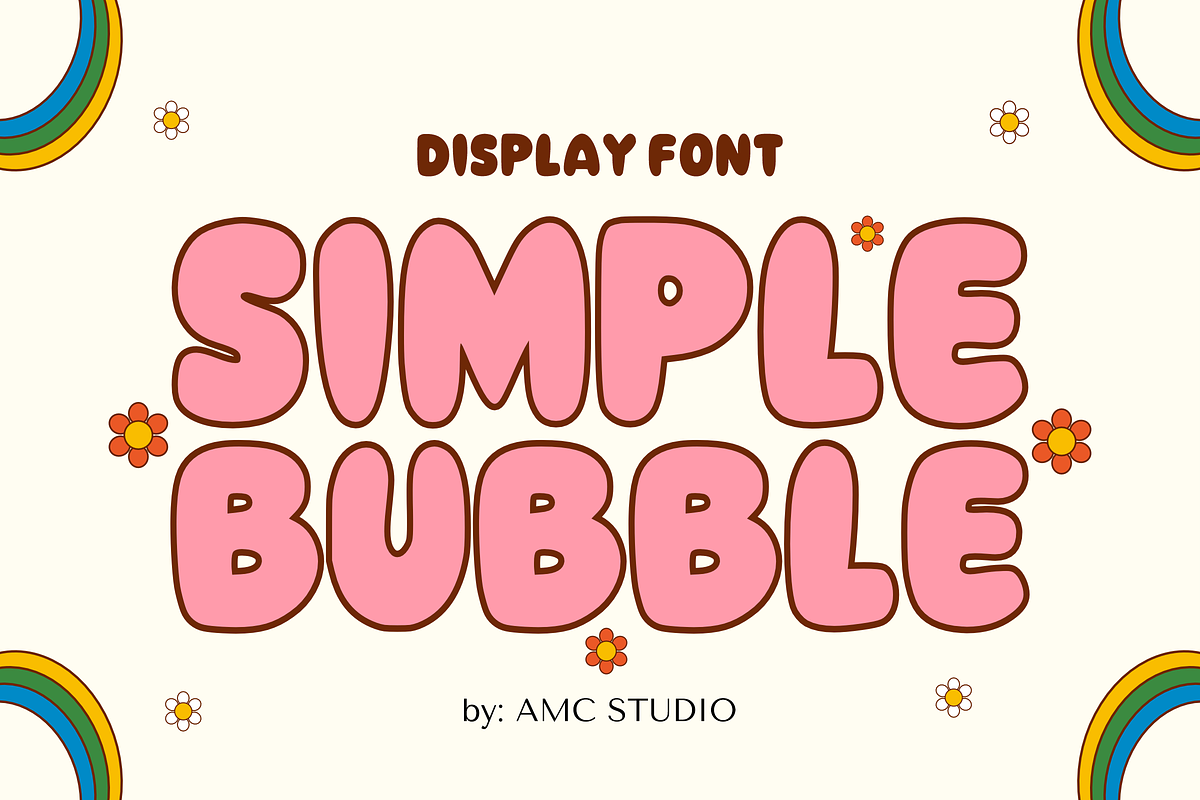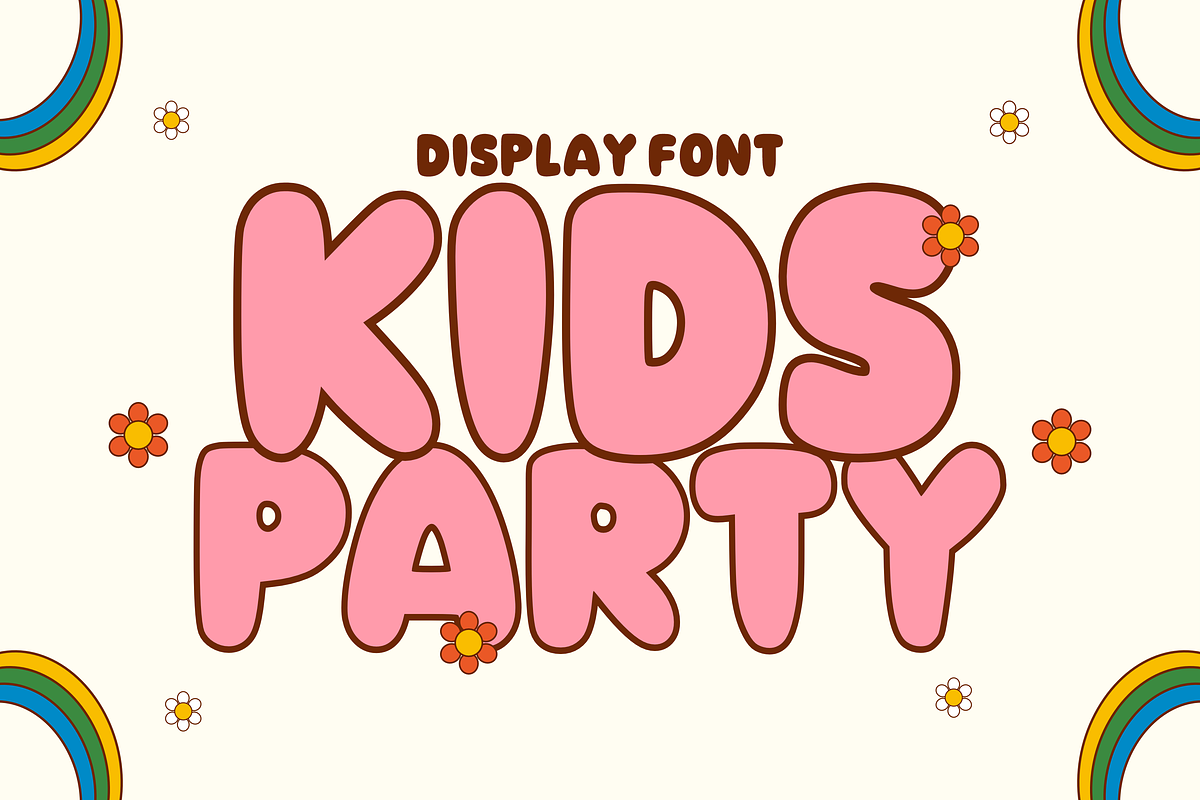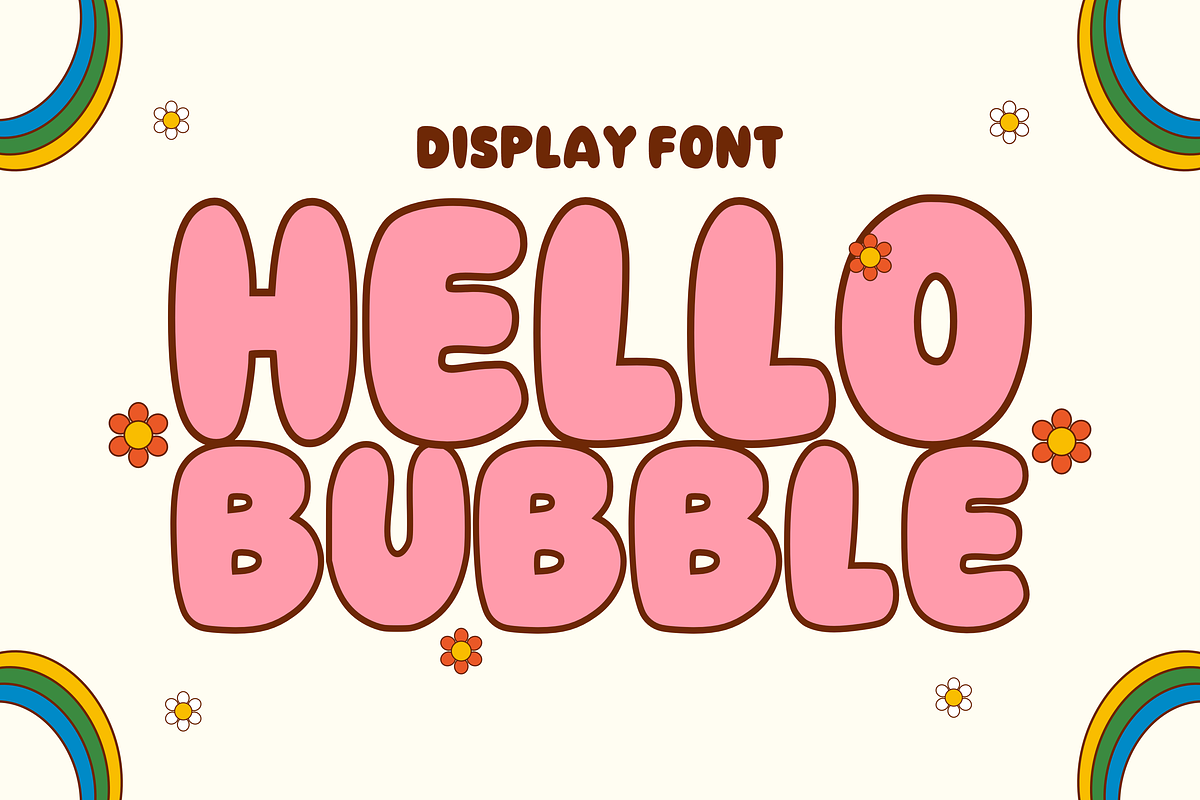
Simple Bubble - Bubble Font Types
Introducing Simple Bubble – a delightful, contemporary, and robust bubble style embodying innocent childhood charm. A perfect font that effortlessly adds a touch of youthful energy and fun to any kids-based initiative. Whether it’s enhancing logos, enlivening animations, adorning stickers, defining packaging designs, or complementing Cricut projects, Simple Bubble reigns supreme. It is highly favored by news editors, comic artists, and brand strategists alike.
The whimsical nature of Simple Bubble enhances the aesthetics of t-shirts and other apparel, thus making it a staple in the clothing industry. It’s also well-suited for posters, magazines, books, and digital platforms like YouTube, Instagram, and websites, breathing life into every creative design venture it graces. Simple Bubble is more than just a font – it’s a creative companion that adds a dash of playful exuberance to your projects.